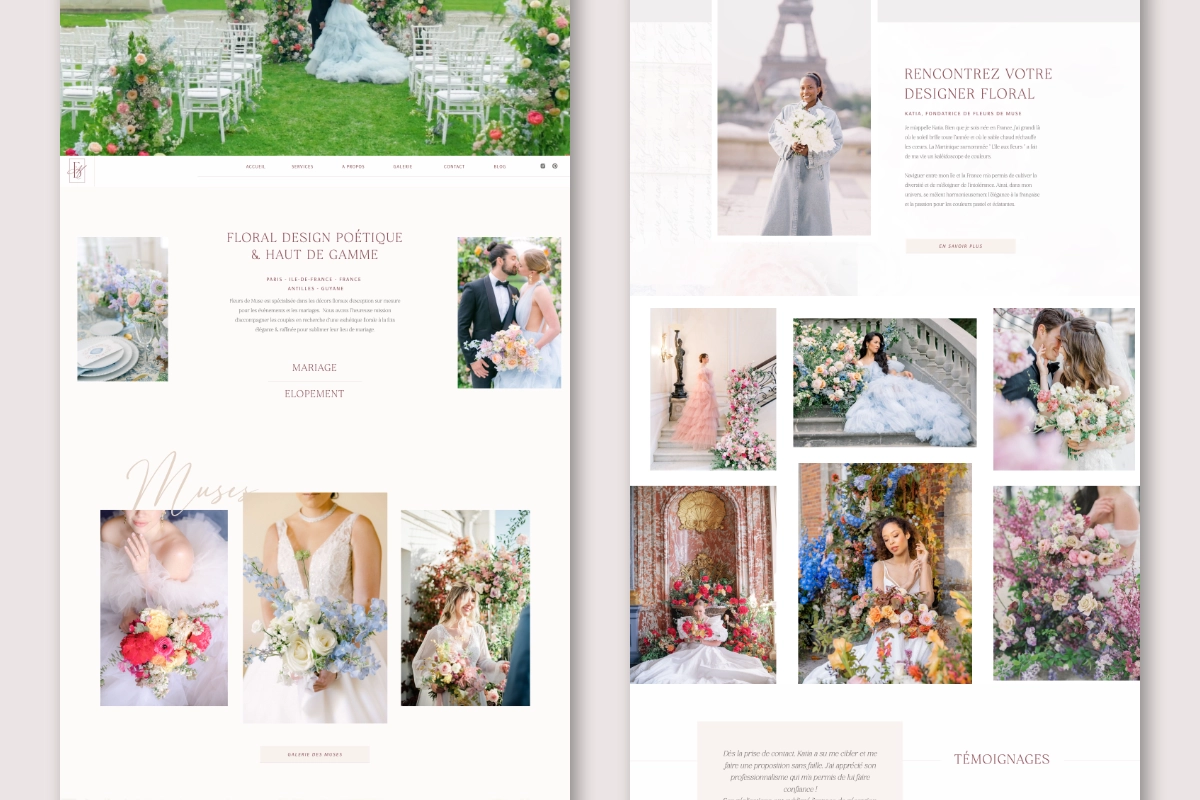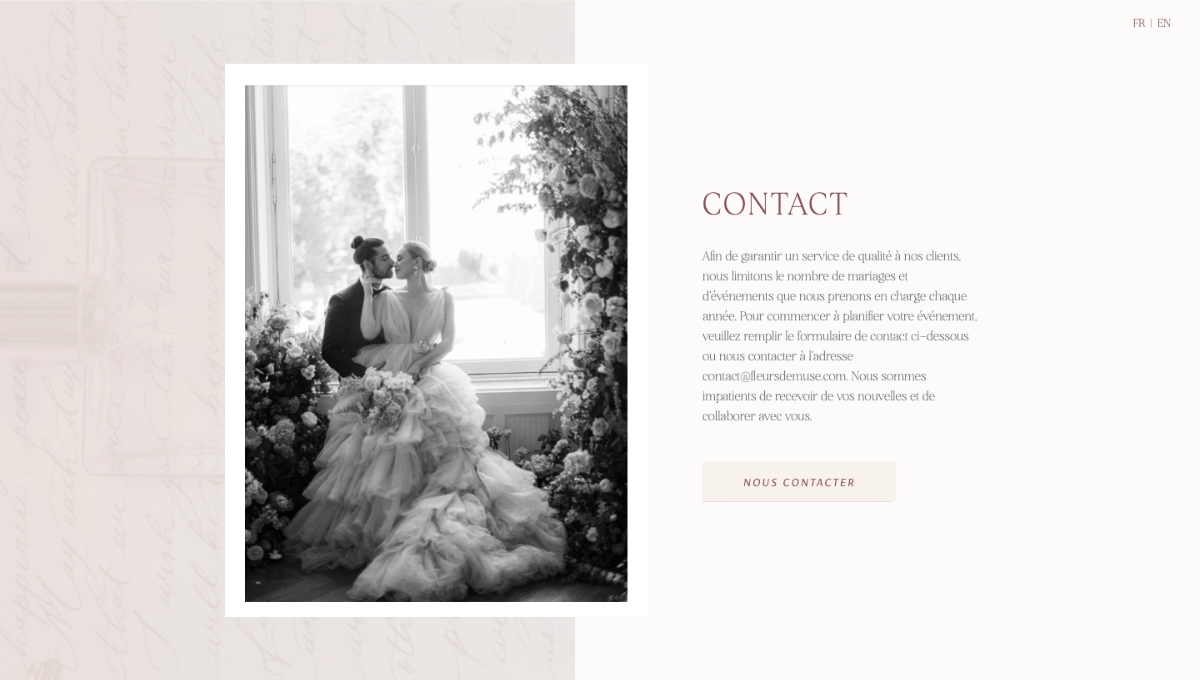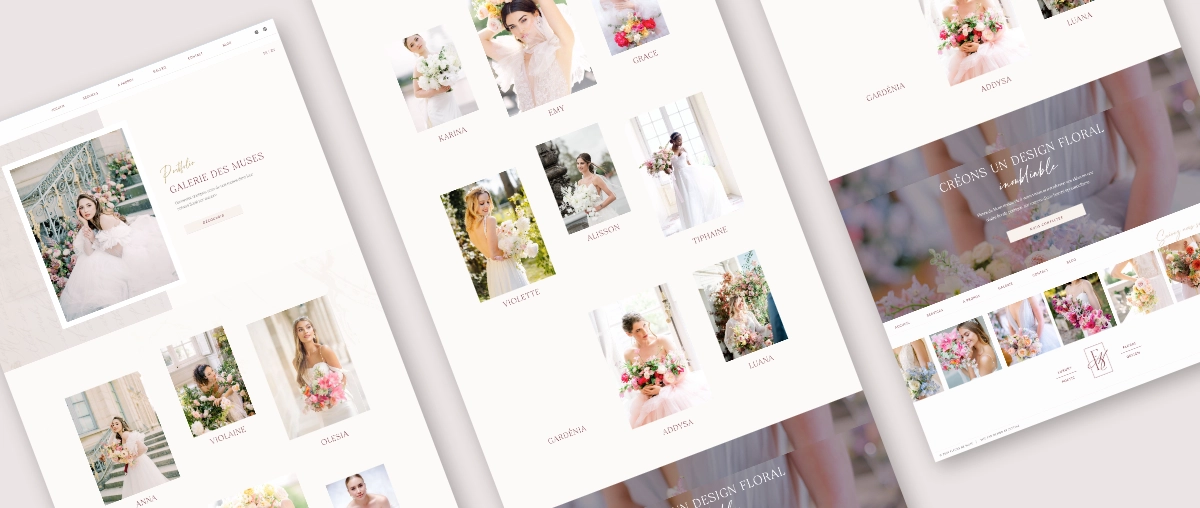
Fleurs de Muse – Luxury Floral Design
The sophisticated website for Fleurs de Muse relies on the San de More font to express the poetic, high-end elegance of French luxury floral design.
Fleurs de Muse is a premier, luxury floral design studio based in France, specializing in bespoke floral arrangements for high-end weddings and exclusive elopements. Founded by Katia, an artist who beautifully blends French elegance with the vibrant spirit of Martinique, the brand is renowned for transforming ordinary venues into breathtaking, poetic floral realities. Their online presence, gracefully crafted by the web studio Design by Justine, perfectly mirrors this premium aesthetic, offering visitors a digital experience that feels as delicate and luxurious as the floral centerpieces they create.
To establish this refined and romantic atmosphere, the website extensively uses the San de More font for its primary typography. The font’s high-contrast strokes and elegant serif curves bring a timeless, editorial quality that perfectly complements the brand’s stunning floral photography. By integrating San de More into their digital identity, Fleurs de Muse successfully communicates a sense of poetic luxury, ensuring that their high-net-worth clientele instantly recognizes the meticulous artistry and premium nature of their bespoke services.
Comprehensive website branding layout for a luxury floral designer featuring San De More elegant serif font
High-end portfolio gallery UI/UX design showcasing wedding photography and floral arrangements featuring San De More elegant serif font
Clean and minimalist website contact page for a premium wedding florist featuring San De More elegant serif font